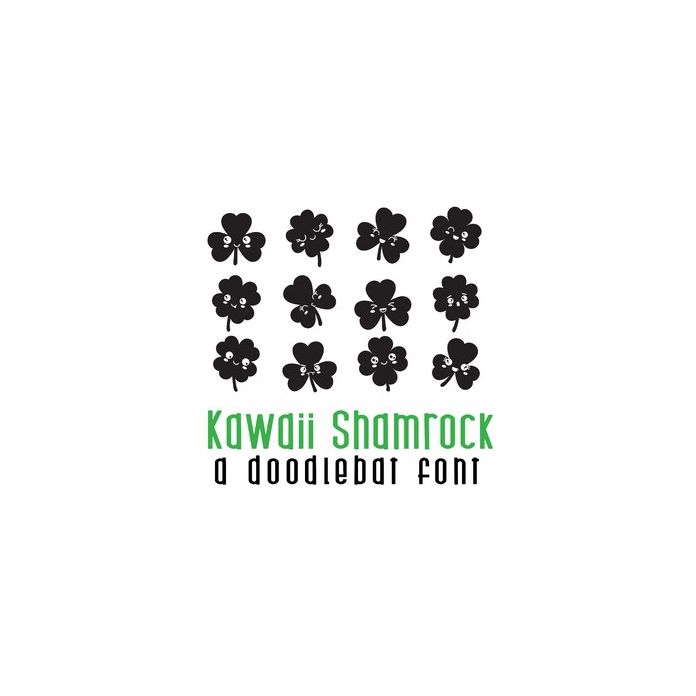
This fun full-color doodlebat font features 26 adorable Kawaii style shamrock emojis that are perfect for cards, crafts, gifts, scrapbook pages, planner stickers, and more!